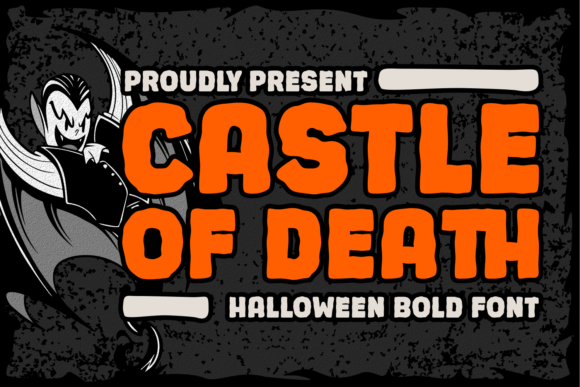
Unleash the Spook: Exploring the Castle of Death Font
The Castle of Death Font is a bold display font that has been making waves in the design community. Its unique feature of letters that appear to shiver or shake gives it a spooky and eerie feel, making it perfect for creating a creepy or haunted atmosphere in your designs. In this article, we’ll dive into the world of Castle of Death Font, exploring its features, uses, and how to make the most of this font in your designs.
What is Castle of Death Font?
Castle of Death Font is a bold display font designed to evoke a sense of eeriness and spookiness. Its letters are intentionally distorted to give the impression of shivering or shaking, creating a creepy effect that’s perfect for Halloween-themed designs, horror movie posters, or any project that requires a haunting atmosphere.
The font’s design is inspired by traditional Gothic architecture and the macabre, making it an excellent choice for designers looking to add a touch of darkness and mystery to their work.
Key Features of Castle of Death Font
- Unique Lettering Style: The font’s letters are designed to appear as if they’re shivering or shaking, creating a spooky effect.
- Bold and Eye-Catching: Castle of Death Font is a bold display font that’s sure to grab attention.
- Perfect for Creepy Designs: The font’s eerie feel makes it ideal for creating a haunted or creepy atmosphere in your designs.
- High-Quality Design: The font is designed with high-quality craftsmanship, ensuring it looks great in any design.
Uses of Castle of Death Font
Castle of Death Font is a versatile font that can be used in various design projects, including:
- Halloween-themed Designs: The font is perfect for creating spooky posters, flyers, or social media graphics for Halloween.
- Horror Movie Posters: Castle of Death Font can add a creepy touch to your horror movie poster designs.
- Haunted House Marketing Materials: The font can be used to create eerie marketing materials for haunted houses or haunted attractions.
- Dark and Gothic Designs: Castle of Death Font can be used in designs that require a dark and gothic feel, such as album covers or book covers.
Tips for Using Castle of Death Font
To get the most out of Castle of Death Font, here are some tips to keep in mind:
- Use it Sparingly: Due to its bold and eye-catching nature, it’s best to use Castle of Death Font sparingly to avoid overwhelming your design.
- Pair it with Other Fonts: Pairing Castle of Death Font with other fonts can create a unique and interesting contrast.
- Experiment with Colors: The font looks great in bold colors, but you can also experiment with different colors to create a unique effect.
- Pay Attention to Kerning: As with any font, pay attention to kerning to ensure the letters are evenly spaced and look balanced.
Castle of Death Font is a unique and bold display font that’s perfect for creating a creepy or haunted atmosphere in your designs. Its shivering or shaking letters give it an eerie feel that’s sure to grab attention. With its versatility and high-quality design, Castle of Death Font is an excellent addition to any designer’s font library.
- What is Castle of Death Font?
- Castle of Death Font is a bold display font with letters that appear to shiver or shake, giving them a spooky and eerie feel.